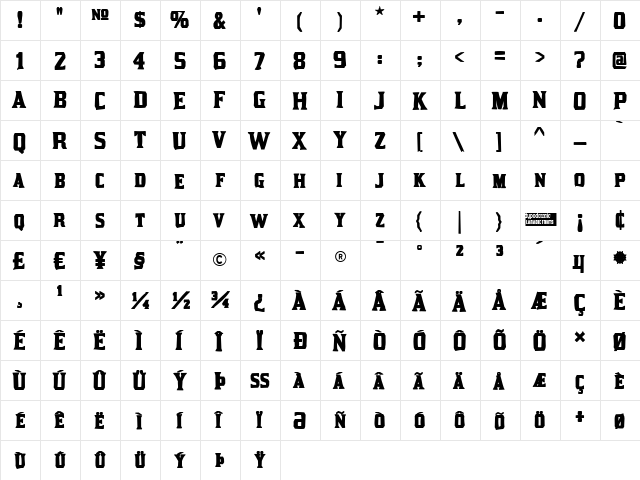
Kirsty Ink Regular
Design Context for Kirsty Ink Typeface
Kirsty Ink takes a measured approach to typography — its balanced proportions and neutral character make it a reliable workhorse for both digital and print work.